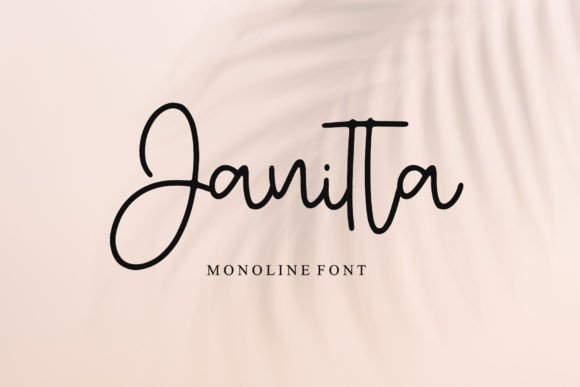
Feast your eyes on Janitta, a symphony of scripted calligraphy, poised and breathtaking. This isn't just a font; it's an artistic masterpiece waiting to grace your designs. Let your imagination soar as you explore endless creative avenues with Janitta.
Envision your logo, a visual representation of your brand, adorned with Janitta's elegant strokes. Picture the awe and admiration as people behold your greeting cards, each word rendered in the enchanting script of Janitta. Picture the allure of your product packaging, elevated by the exquisite charm of Janitta.
Journey into the realm of branding with Janitta as your trusted companion. Let it breathe life into your brand identity, creating a cohesive and captivating aesthetic that resonates with your audience. Unleash your artistic flair in DIY projects, transforming ordinary into extraordinary with Janitta's whimsical touch.
Adorn your book titles with Janitta's delicate curves, capturing readers' attention from the first glance. Imagine the magic of wedding invitations, each letter a testament to the love and joy of the occasion, beautifully expressed through Janitta's graceful script. Let Janitta weave its magic into your packaging, adding a touch of sophistication and elegance that sets your products apart.
With Janitta at your disposal, the possibilities are boundless. Make your mark on the world, one design at a time. Embrace the beauty of Janitta, and let your creativity shine. Dive into the world of Janitta today and unlock a world of design possibilities.